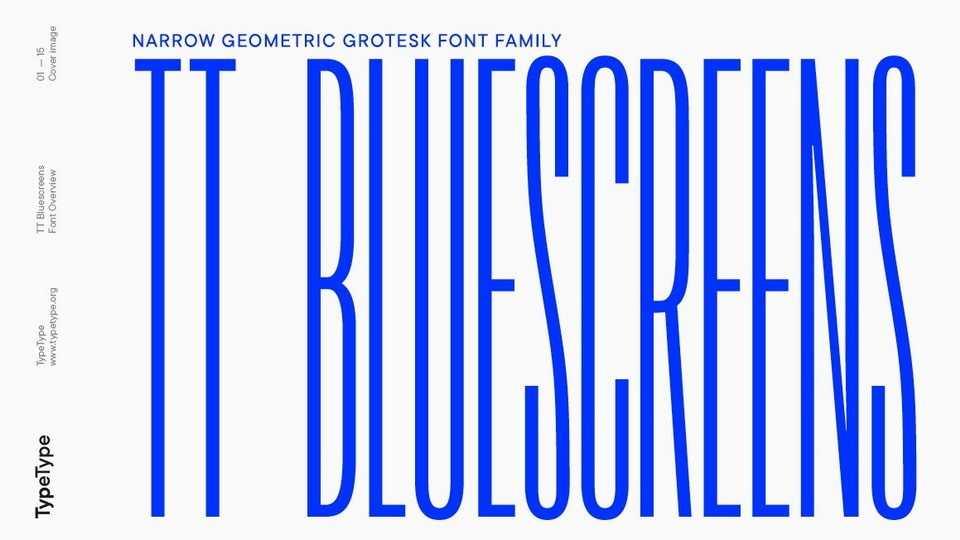
Download TT Bluescreens font, a geometric sans serif typeface with narrow proportions. TT Bluescreens font has a memorable character, while remaining neutral, so it can be used in various design projects.
Designer: TypeType Team